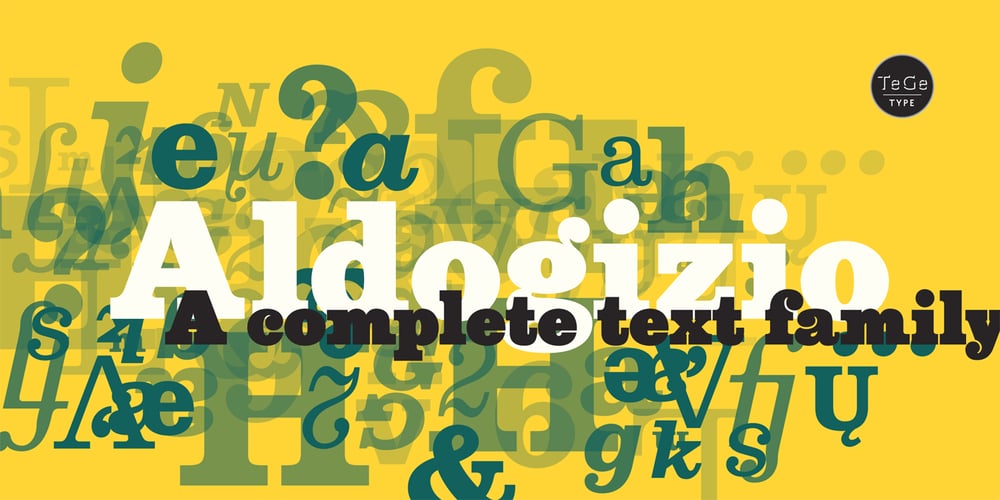
Aldogizio
Aldogizio font
Aldogizio Font Family was designed by Thierry Gouttenègre and published by TeGeType. Aldogizio contains 10 styles and family package options. The ALDOGIZIO family is a new slab-serifs typefaces family inspired by Aldo Novarese’ Egizio. It can be use for text as for titling applications.